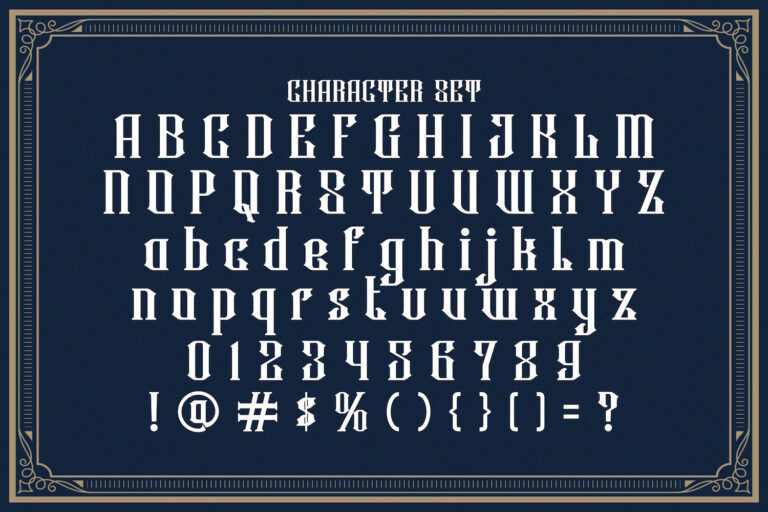
The Rowney Kahfi Victorian Style Font is a striking blackletter typeface that merges ornate elegance with bold gothic character. Each letterform features sharp angles, high contrast strokes, and uniquely stylized terminals, giving it a dramatic flair reminiscent of Victorian-era signage and architecture. The font includes an extensive set of alternates and decorative swashes, allowing for creative typography with a strong visual rhythm. These flourishes add a sense of movement and theatricality that feels right at home in retro branding or vintage poster designs.
Rowney Kahfi is particularly well-suited for display purposes. Its commanding presence and ornamental detail make it ideal for logos, book covers, liquor labels, tattoo studios, and themed event promotions. The legibility remains surprisingly intact despite its intricate styling, making it a flexible choice for headers and typographic compositions where personality is paramount. From steampunk aesthetics to classic horror themes, Rowney Kahfi delivers a moody, luxurious atmosphere with every glyph—especially when paired with gold accents or richly textured backgrounds.
If you're looking for a font that instantly sets a nostalgic yet bold tone, the Rowney Kahfi Victorian Style Font is a powerful typographic weapon worth exploring.